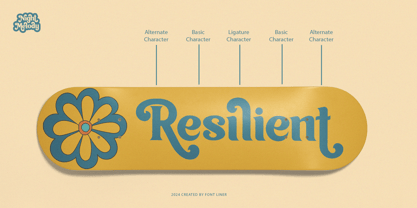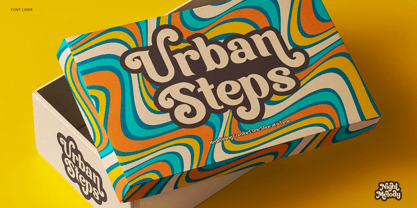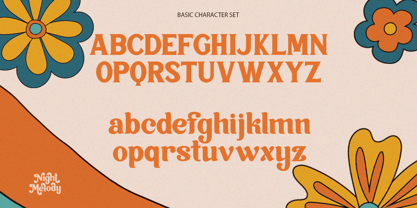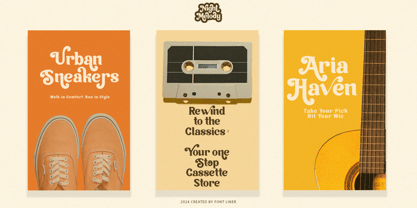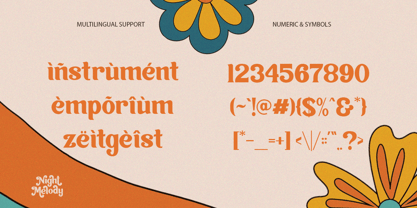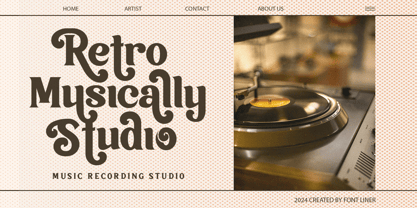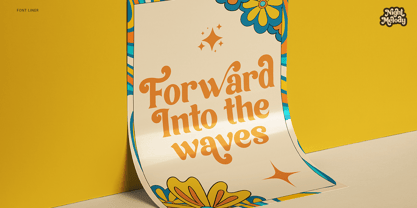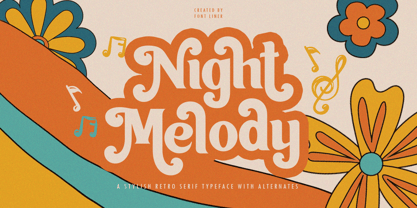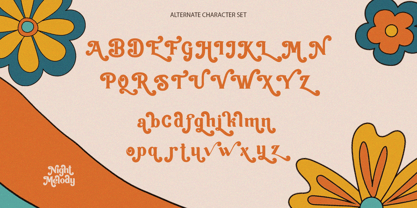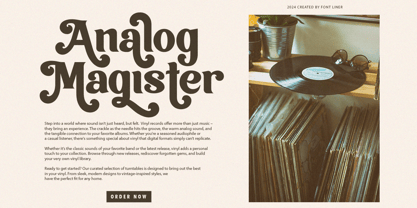
Night Melody
The Night Melody Font Family was designed by Ghina Luthfiarieska and published by Font Liner. Night Melody contains 2 styles and family package options.
Night Melody is stylish retro serif font characterized by its smooth and rounded edges. This display font adds a distinctive retro flair to any design concept. It includes a full set of characters, featuring uppercase and lowercase letters, numbers, punctuation marks, many alternates and multi-lingual support, making it versatile for various projects. Night Melody Ideal for logotypes, stickers, packaging design, headlines, brand identity, the apparel industry, posters, magazines, books, YouTube, Instagram, websites, and any other creative endeavors, this font is ready to elevate your amazing designs.
- Night Melody
- Night Melody Italic
- Alternates Character
- Multi Language Support
Designers: Ghina Luthfiarieska